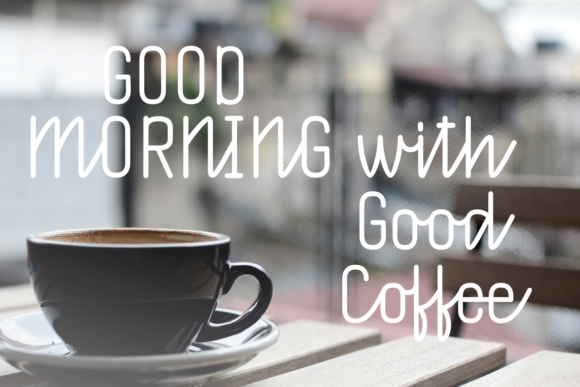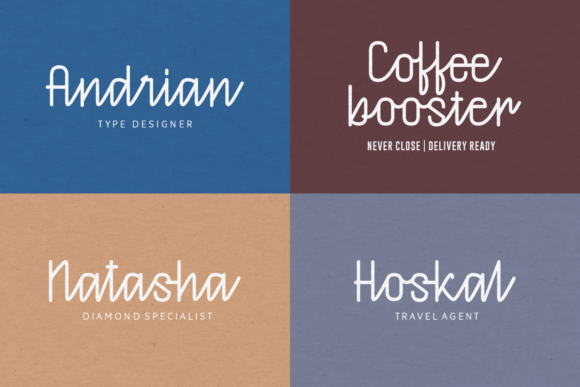
Alberton Font
db-ku.com - Script & Handwritten -- Alberton is a unique and elegant script-style font. It’s a perfect match for branding, logos, quotes, personal branding, websites, books, cards, etc. You better include it now in your library and use it to create unique and modern headlines and web designing.